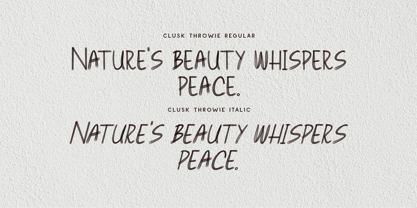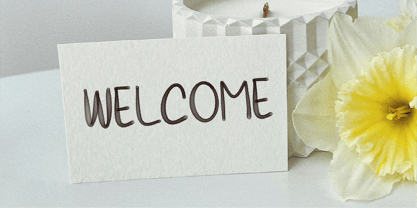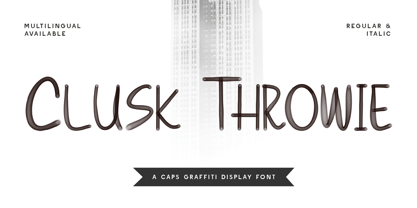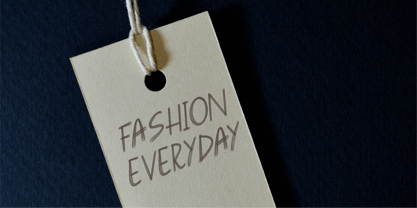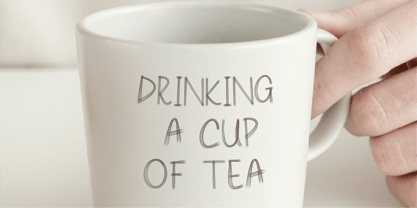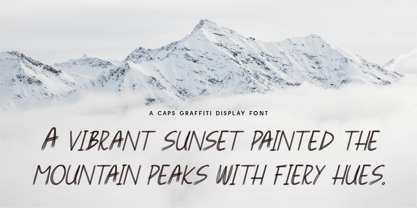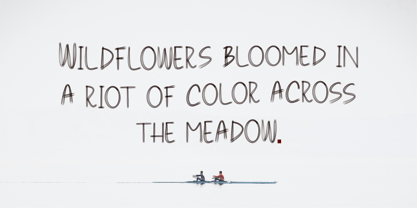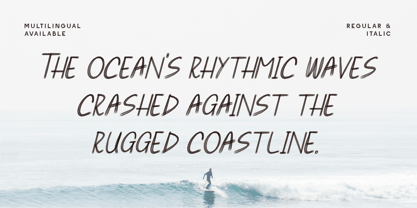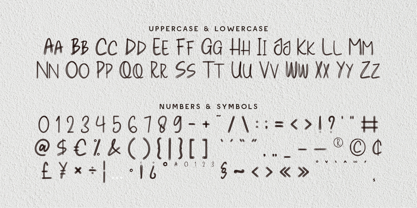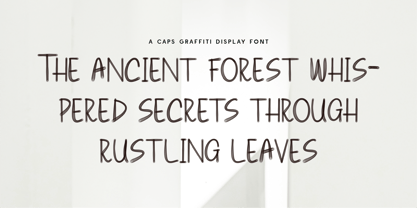
CF Clusk Throwie
by Indotype
Introducing Clusk Throwie, a caps-only graffiti display font inspired by authentic street art and tag culture. With its spray-painted edges, marker-style strokes, and rebellious attitude, this font delivers an unapologetic dose of urban grit and underground energy.
Whether you’re designing for album covers, apparel, extreme sports branding, posters, urban events, or edgy social content, Clusk Throwie brings an instant hit of graffiti authenticity and raw expression. Available in Regular and Italic styles, it’s built for creatives who want to make a statement.
Why Choose Clusk Throwie?
- 🎨 Authentic Graffiti Look: Handwritten marker style with caps for bold impact.
- 🏙 Street Culture Approved: Perfect for skate brands, rap visuals, zines, and rebellion-themed design.
- 🔁 Regular & Italic Included: Flexibility to emphasize movement and style.
- 🌍 Multilingual Support: Includes symbols, punctuation, and wide language coverage.
Designers: Gilang Mei Nugraha, Frederik Aristaputra
Foundry: Indotype